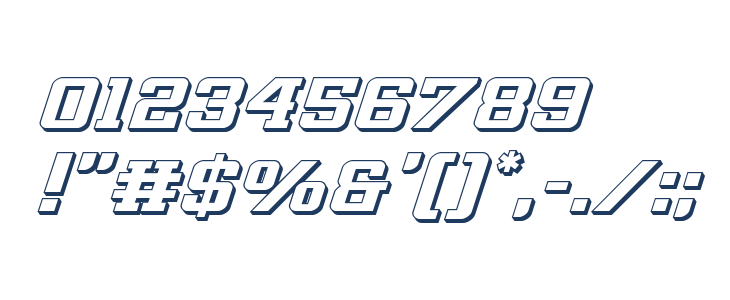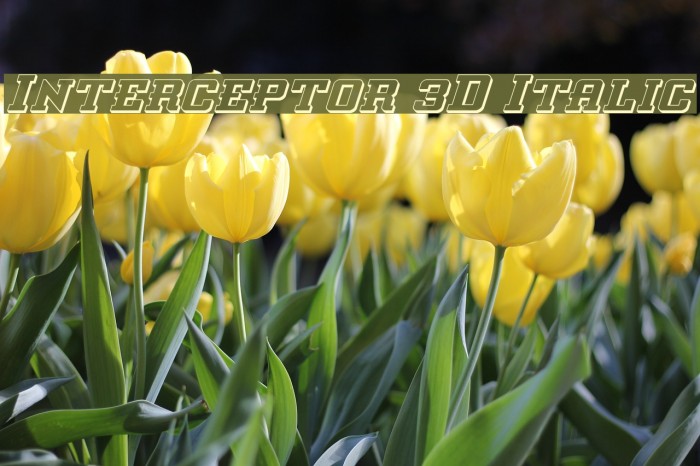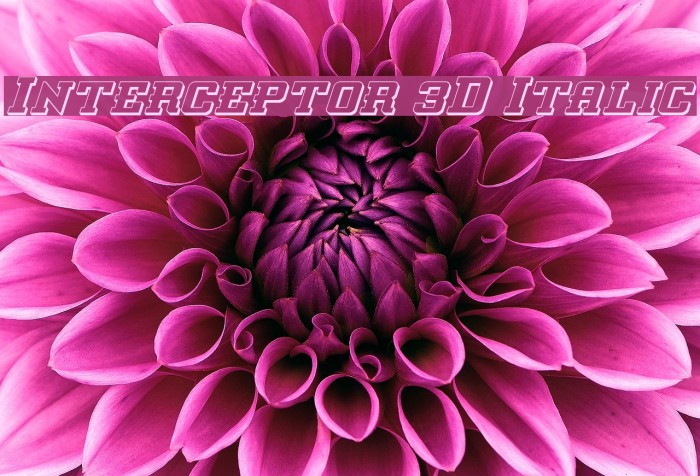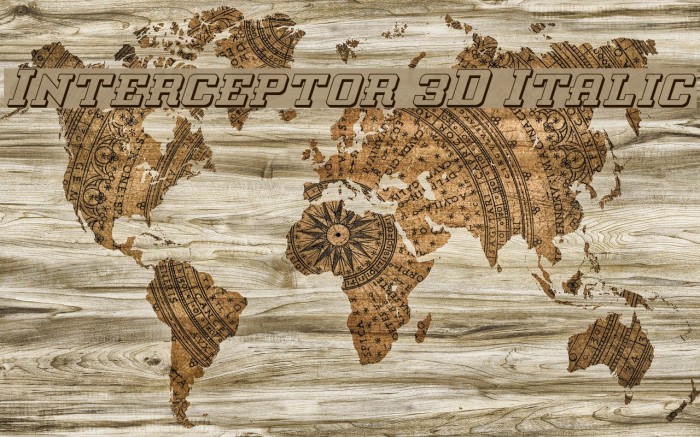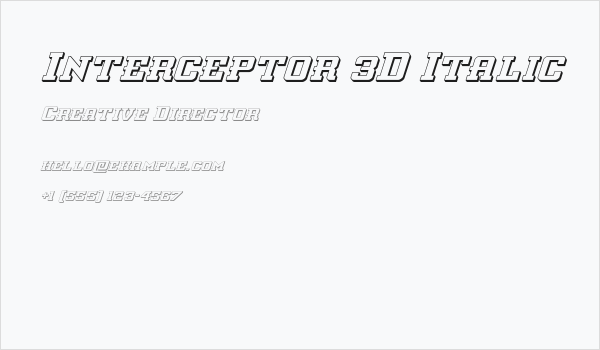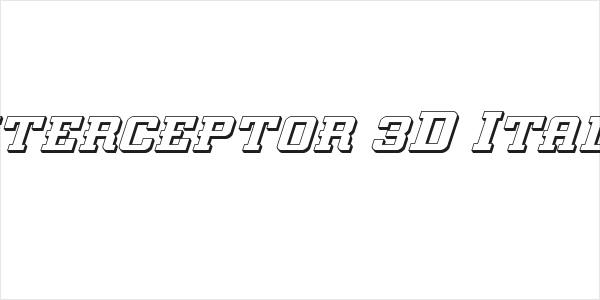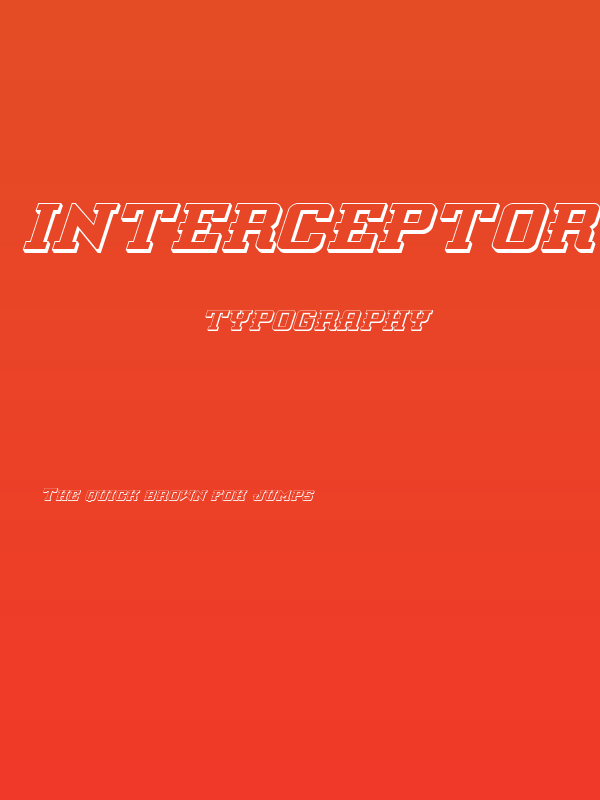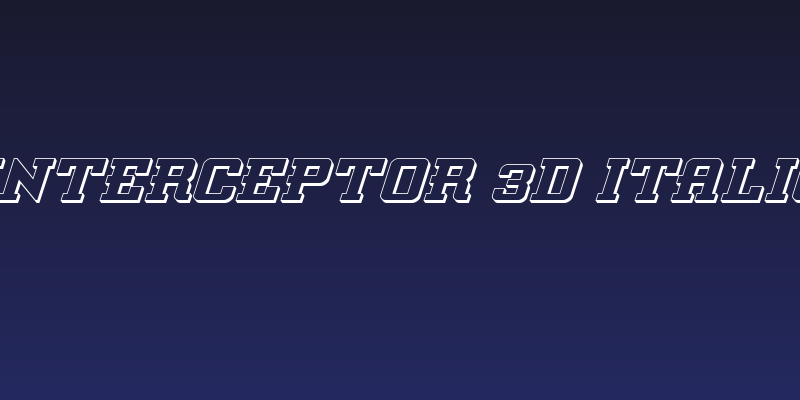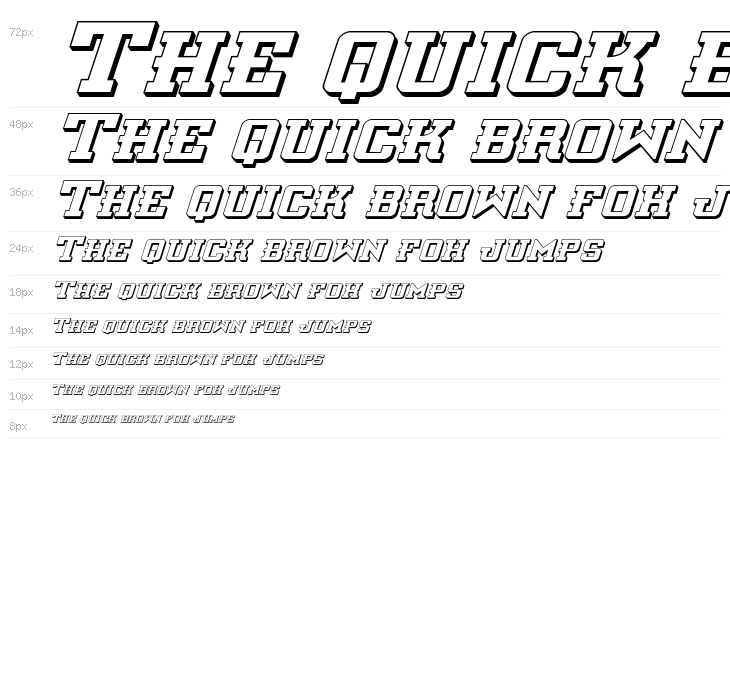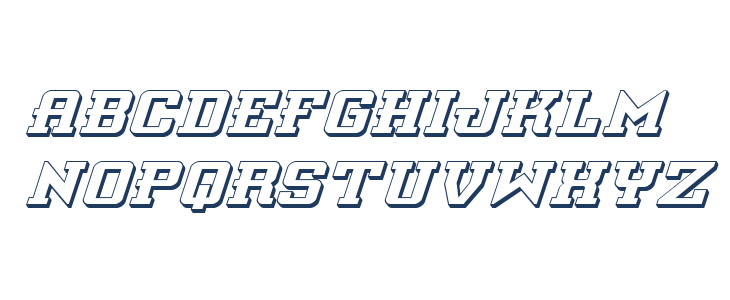
Interceptor 3D Italic Font
Interceptor 3D Italic Description
This font features a bold, three-dimensional design with a strong italic slant, giving it a dynamic and futuristic appearance. The characters are outlined with a shadow effect, enhancing the 3D illusion. The uppercase letters are robust and angular, while the lowercase letters maintain the same bold style, ensuring consistency across the typeface. The numerals and special characters are designed to match the overall aesthetic, making this font suitable for impactful and eye-catching designs. The spacing between characters is tight, contributing to its compact and cohesive look.
| Proposed Projects | Ideal for video game titles, movie posters, sports branding, and any project requiring a bold, futuristic look. |